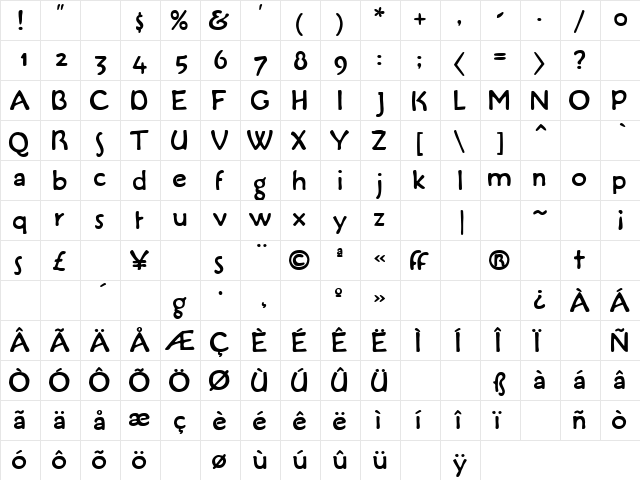
Thanksgiving Regular
Design Context for Thanksgiving Typeface
Thanksgiving is a composed and adaptable typeface that performs quietly and consistently across a wide range of design contexts.